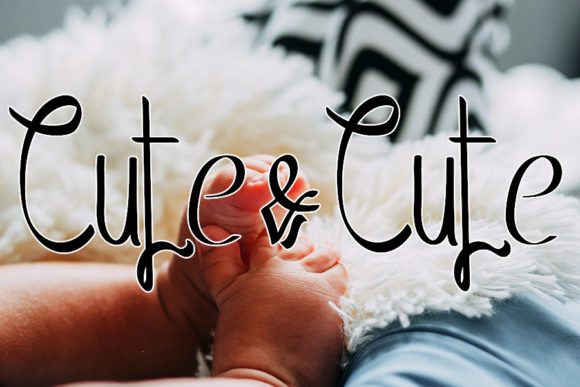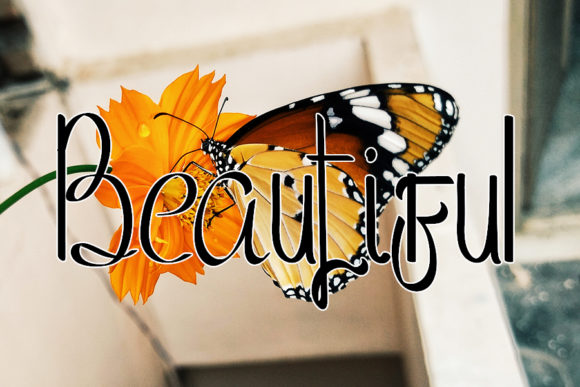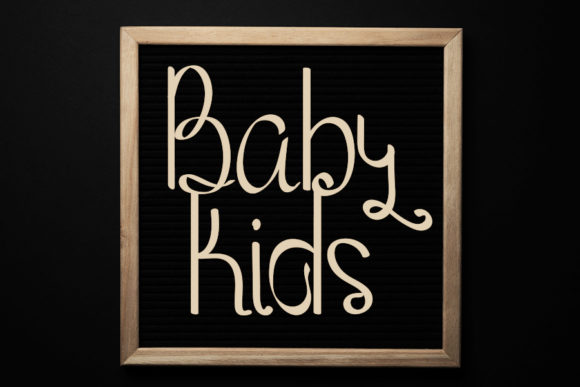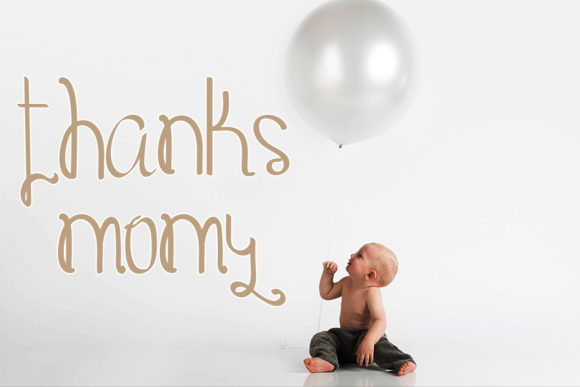
Abdilla Font
About Abdilla Font
Abdilla is a delicate and luxurious handwritten font. Delicate and simple, this font will elevate each of your designs.